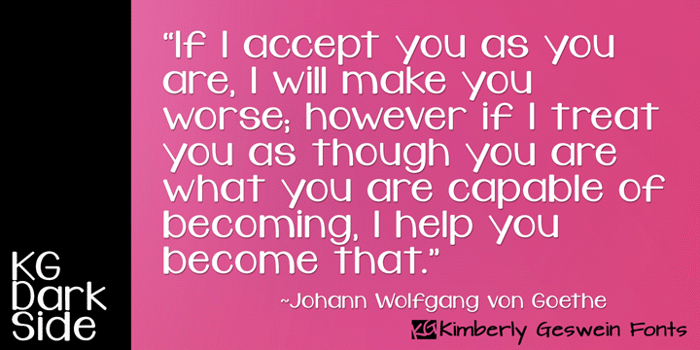
KG Dark Side Font
Hi Kimberly, I really, really like this font for some christian messages. Do you have another similar font or is it possible that the name be changed? This is for the name "dark side". Thanks and may God continue blessing you by increasing your creativity for his service.
This font title was inspired by the Kelly Clarkson song "Dark Side". It isn't about anything evil- it is about loving someone wholly and completely, warts and all.